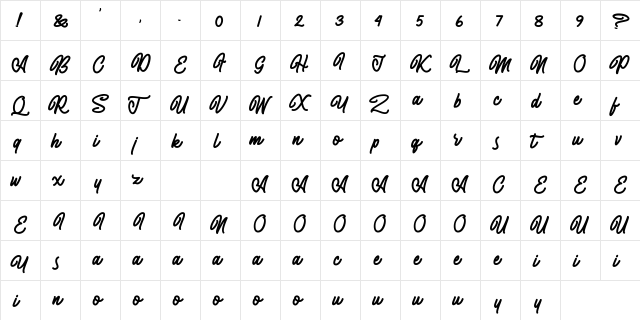
Almonthy Mirotas Regular
Design Context for Almonthy Mirotas Typeface
Almonthy Mirotas is a composed and adaptable typeface that performs quietly and consistently across a wide range of design contexts.
Pro Tip: Use Almonthy Mirotas in both headline and body roles to test its range before committing to a single application.